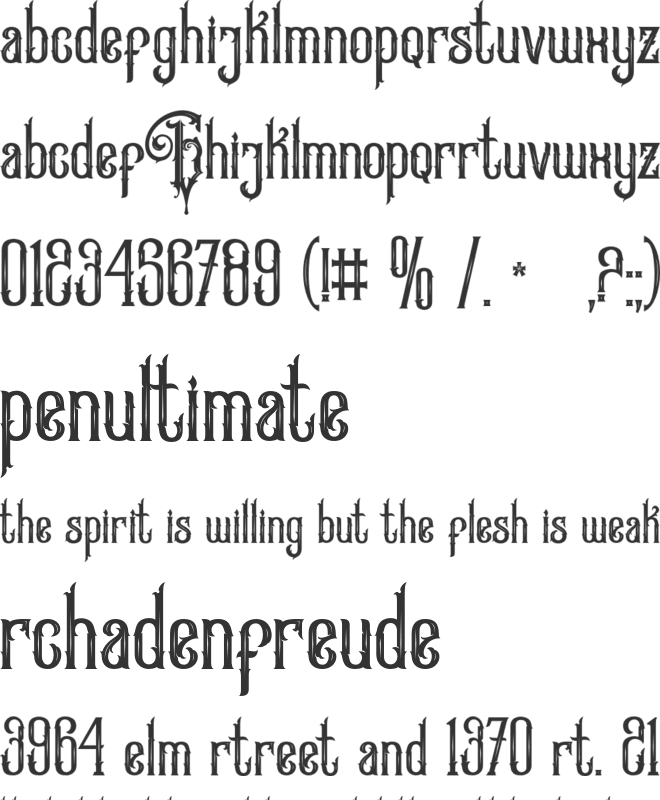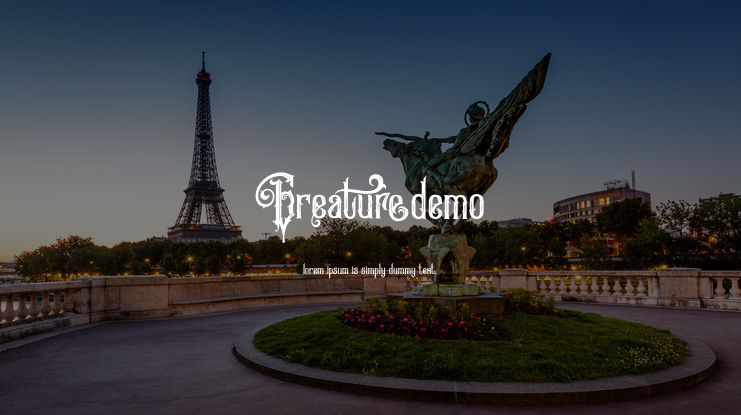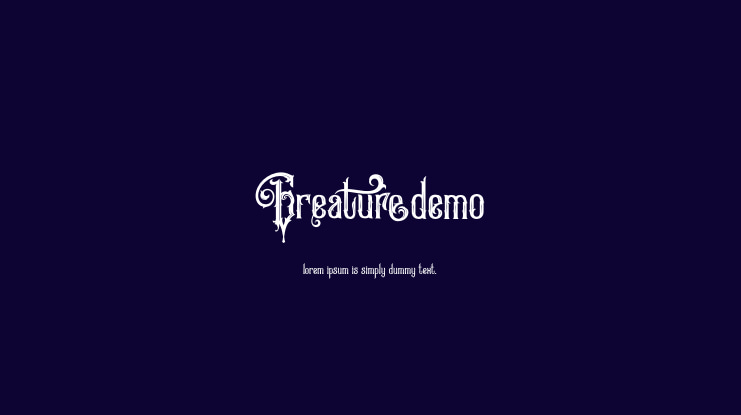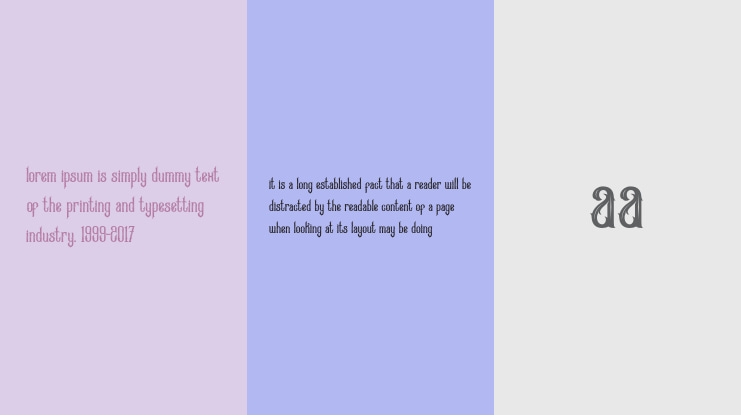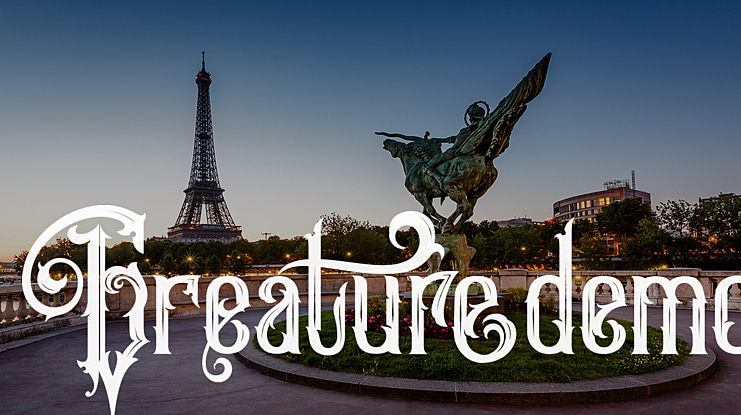
GreatureDemo Font
INTRODUCING
Greature Typeface
Come with more 400 glyphs , 2 style ( Regular and Shine ) including Stylistic sets, Ligatures, Contextual Alternates and some extras (eps and ai) for helping you design.
Greature Inspired by Tattoo art , Typografi design , Sign Painters ,Lettering , Vintage art and Ephemera Perfect looking for Label, Poster, Logotype, Letterhead, Titles,Branding, Packaging, Typografi etc.